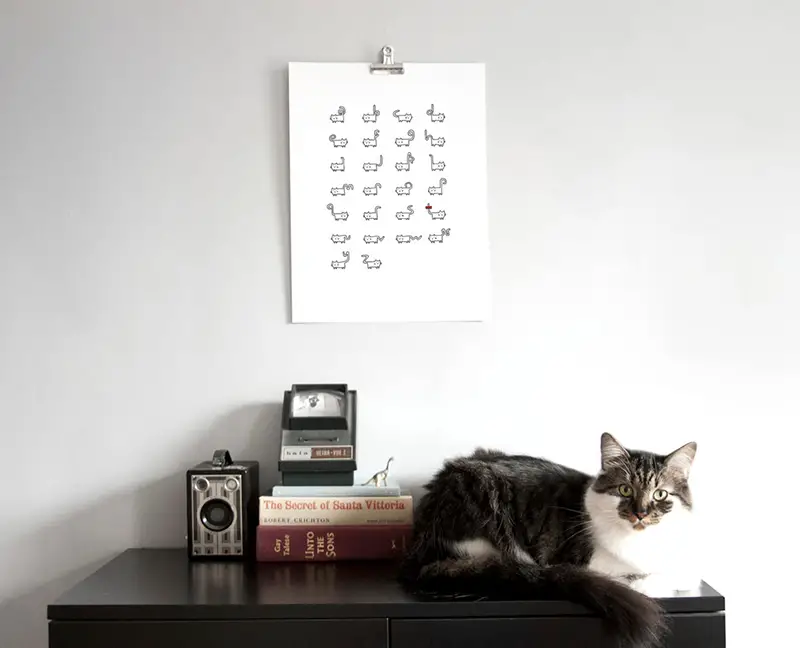
A Font For Feline Fans – Helveticat by Bethany Lesko.
Helveticat by Bethany Lesko
Cats and type, together at last. Helveticat by Bethany Lesko. A sweet 12″x16″ print of this kitty cat alphabet, letter-pressed by hand in Brooklyn, NY.
Helveticat by Bethany Lesko
Okay cat lovers, finally there’s a feline font for you! Helveticat by Bethany Lesko!
cat alphabet Helveticat by Bethany Lesko
Helveticat by Bethany Lesko